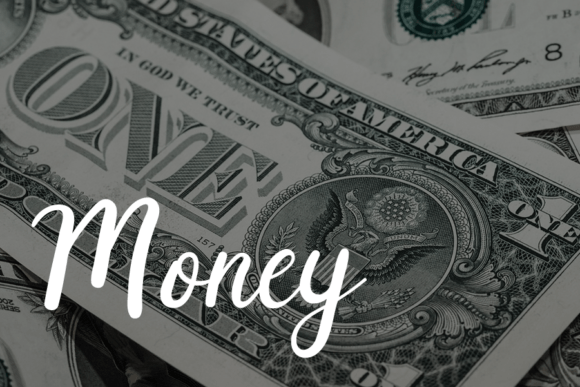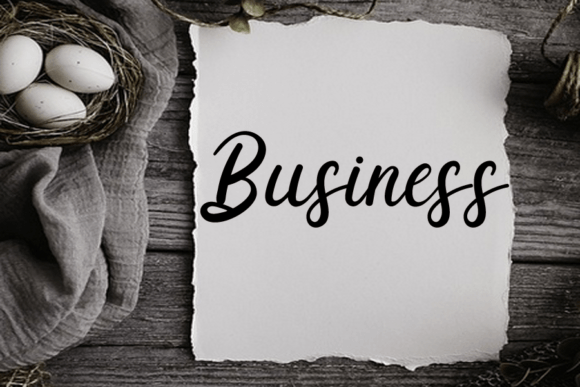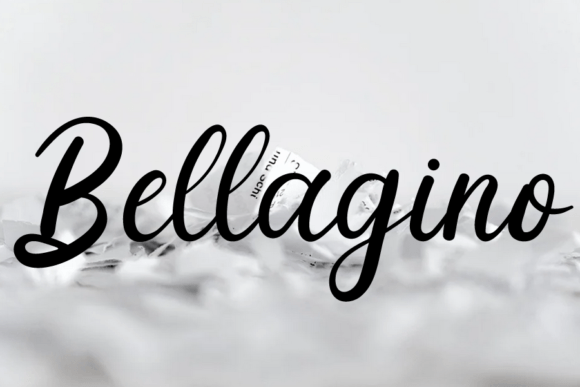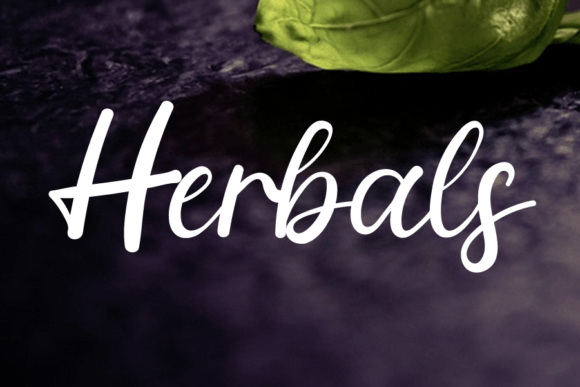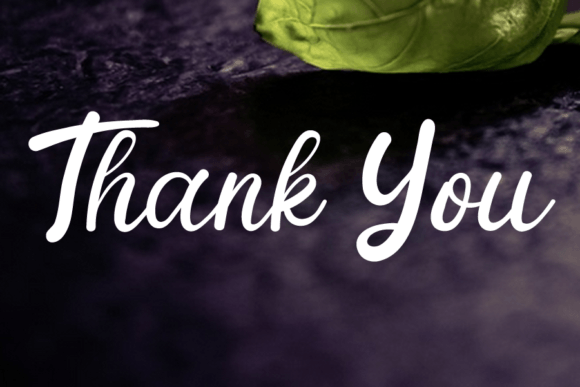
Spooky Font
About Spooky Font
Introducing “Spooky” – Your Modern Script Typeface for Stylish Designs!
“Spooky” is not just a font; it’s a versatile and stylish script typeface designed to enhance the beauty of your design projects. Whether you’re working on logos, book or movie design titles, fashion brands, magazines, clothing, fonts, quotes, or any creative endeavor, “Spooky” is the perfect choice to add a touch of modern elegance.
With “Spooky,” you have access to a font that offers simplicity and modernity in its letterforms. Its clean and straightforward style exudes a sense of contemporary design, making it ideal for a wide range of applications.
Imagine using “Spooky” to create sleek and stylish logos that leave a lasting impression, design captivating book or movie titles that draw readers and viewers in, craft fashion brand identities that exude modernity, develop magazine layouts that resonate with a sense of style, create clothing designs that are both fashionable and chic, and use it in various other projects where a modern script typeface is desired.
Whether you’re a professional designer seeking a clean and modern script font or someone with a passion for creative expression looking to enhance your projects, “Spooky” is your go-to typeface for creating visually appealing and contemporary designs.